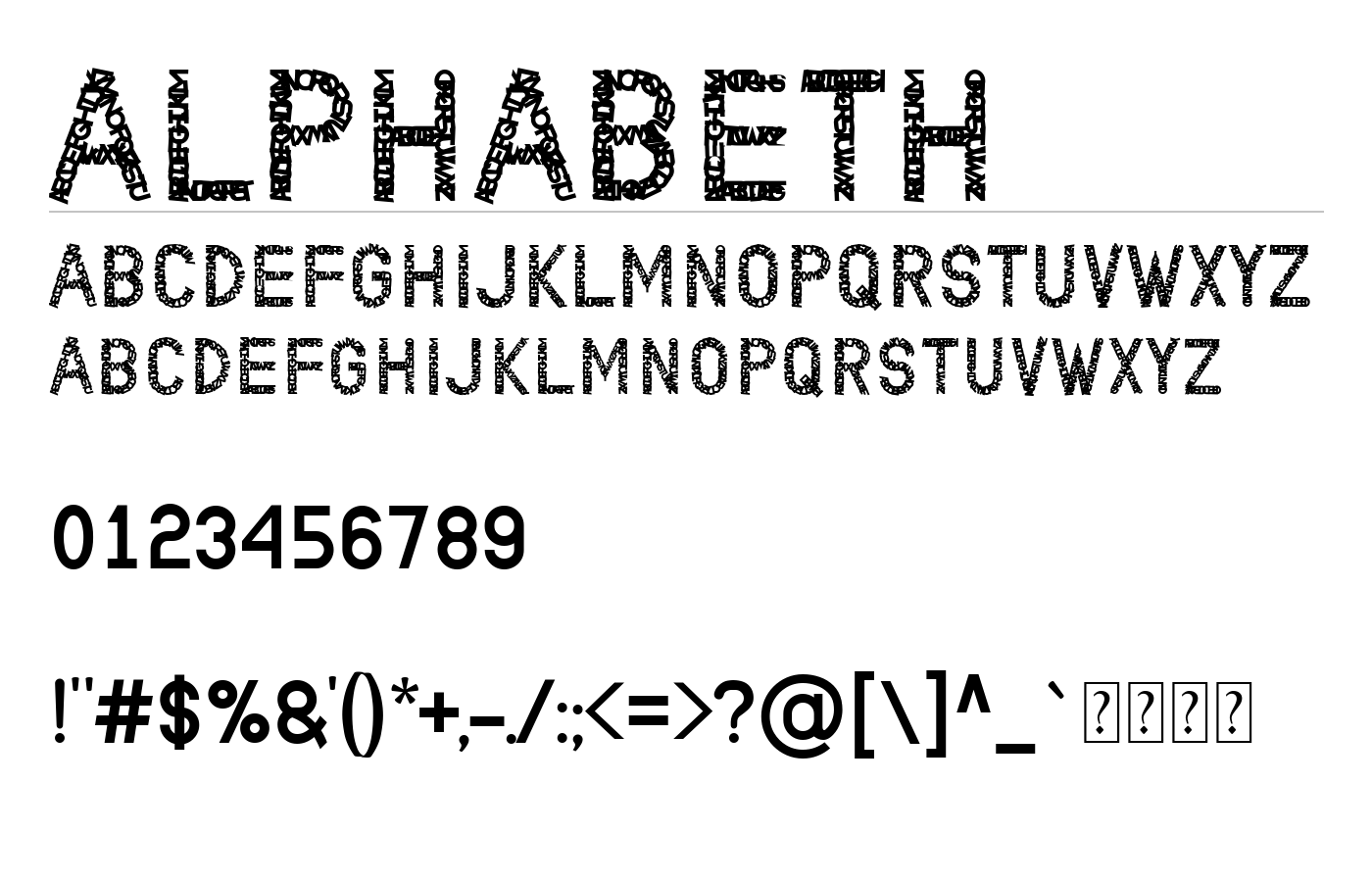
ALPHABETH is a striking, display-style sans serif font that creatively forms letter shapes from smaller repeating characters, giving it a distinctive, textured look. Its bold weight and medium width make it eye-catching and ideal for headlines or logos that need a playful yet modern vibe. This font works best in creative branding or poster designs where unique visual impact is key.
ALPHABETH Font
About ALPHABETH Font